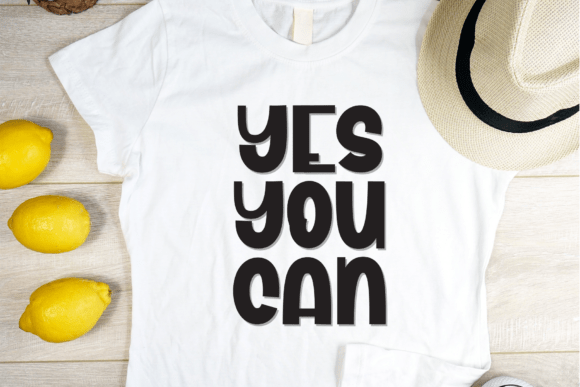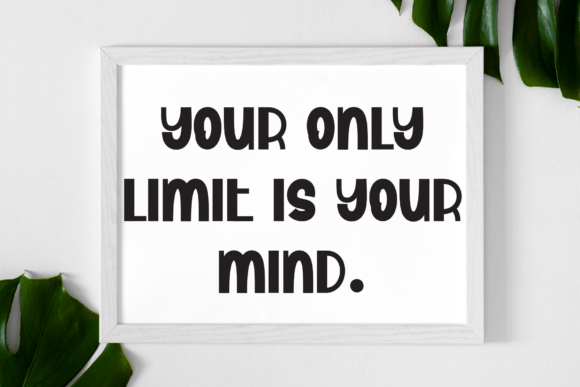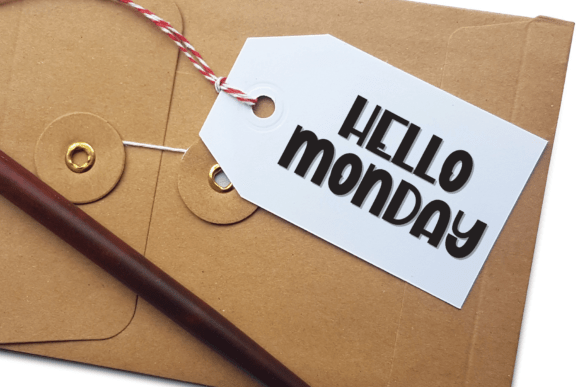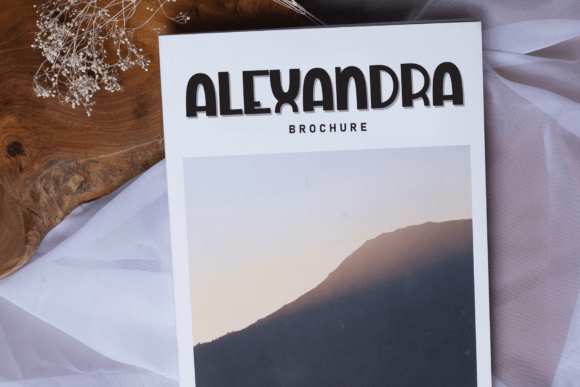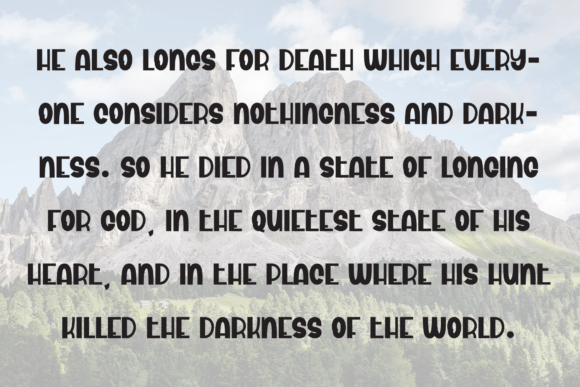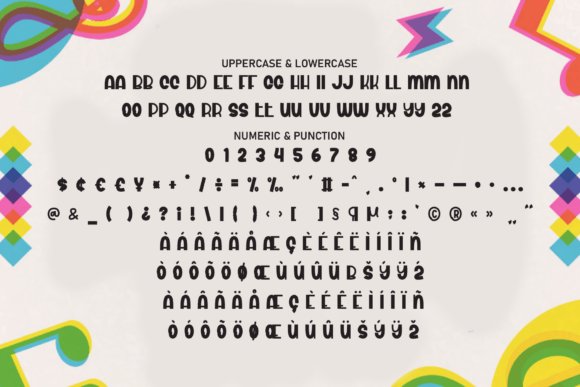
Introduction to Party Anthem Font
Have you ever been at a party and felt like the music just stopped, only to be replaced by the electrifying energy of a DJ’s voice? That’s the kind of excitement we’ve captured in our latest font creation, the Party Anthem Font. This high-quality design resource is more than just a font – it’s an experience that will elevate your creative projects to new heights.
As a designer, you know how hard it can be to find the perfect font to match your vision. That’s why we’re thrilled to introduce the Party Anthem Font, a free download that’s packed with style and personality. With its unique, hand-drawn feel and transparent background, this font is perfect for any creative project that requires a touch of whimsy and fun.
Key Features of Party Anthem Font
- Unique and vibrant design perfect for creative projects and events.
- High-quality font with a transparent background, ideal for use on dark or colored backgrounds.
- Compatible with a wide range of resolutions and sizes, from small text to large display fonts.
- Perfect for creating eye-catching titles, headings, and logos for parties, events, and other celebrations.
- Great for use in digital designs, such as social media graphics, posters, and flyers.
Honest Review: Party Anthem Font
As a designer, I’m always on the lookout for high-quality design resources that can help me elevate my creative projects. Recently, I stumbled upon the Party Anthem Font, and I was excited to give it a try.
- ✨ High-quality design: The Party Anthem Font is incredibly well-designed, with a unique and stylish aesthetic that’s perfect for any creative project.
- ✨ Transparent background: The font comes with a transparent background, making it easy to use on any background color or image.
While the Party Anthem Font is a great addition to any design arsenal, I did encounter a few limitations:
- ⚠️ Limited font styles: The font only comes in a few different styles, which may limit its versatility for certain projects.
- ⚠️ Not suitable for body text: Due to its unique design, the font is better suited for headings and titles rather than body text.
Overall, I’m impressed with the Party Anthem Font. While it may not be perfect, its high-quality design and transparent background make it a valuable resource for any designer working on a creative project. Whether you’re looking to add some flair to a brochure or create a eye-catching social media graphic, the Party Anthem Font is definitely worth checking out.
The Party Anthem Font is suitable for a variety of creative projects, including party invitations, event branding, and social media graphics. Its high-quality design and transparent background make it an ideal choice for designers looking to create engaging and visually appealing designs.